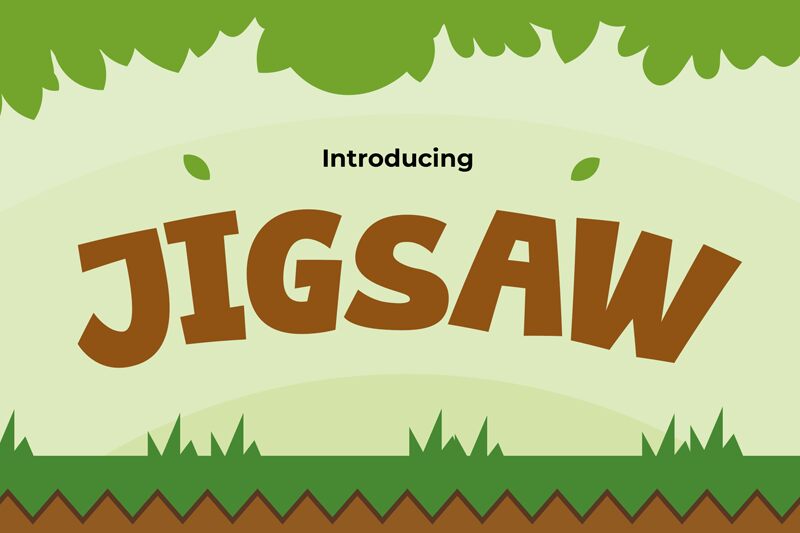
Jigsaw font by Pinisiart embraces a cartoon-like style and features rounded shapes. Its organic flow and friendly appearance give this cartoon font a casual aesthetic and informal tone. The font's informal touch mixed with a very friendly look makes for a free font anyone can use in different types of work and personal projects. A complete font with all characters, numbers, and punctuation marks, it is rounded, cheerful, and attractive.
Looking for use cases? Jigsaw can be used by designers in packaging, ads, social media content, storefronts, video games, animation designs, and more. Its lively structure also makes it suitable to go on stationery items, books, comics, greeting cards, apparel items, etc.